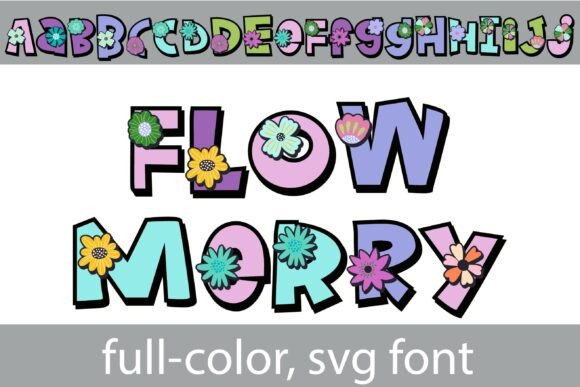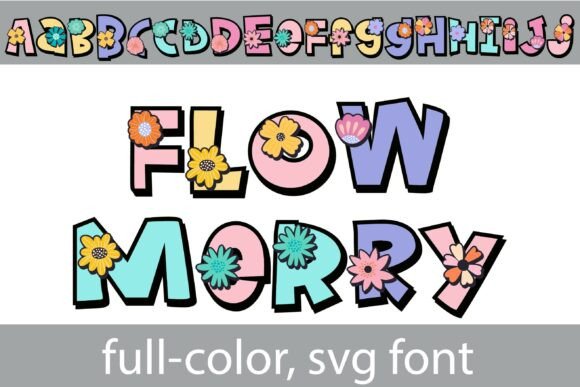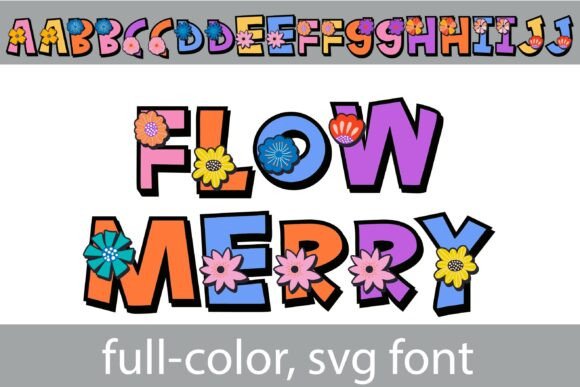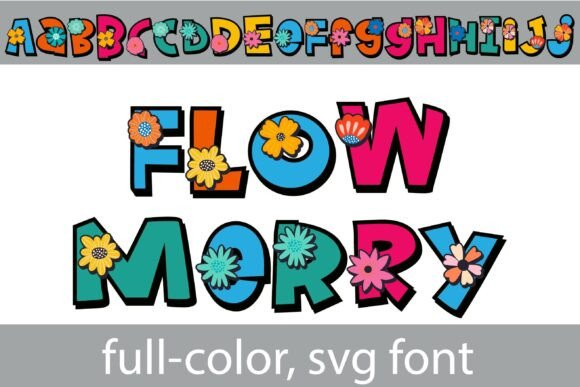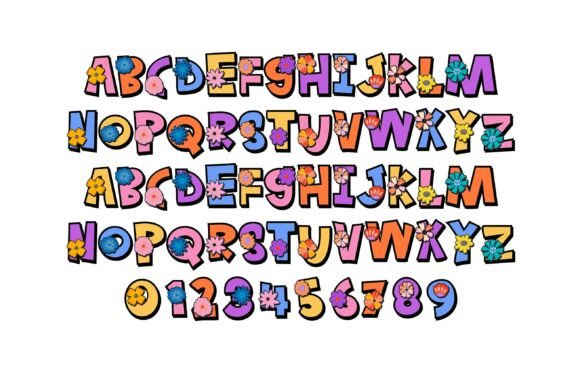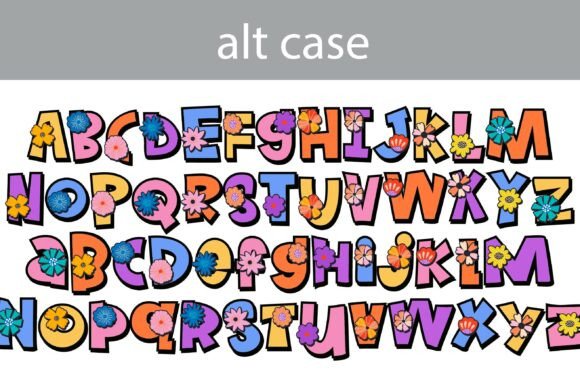
Bloom into Brilliance with FlowMerry Font: Elevate Your Designs with Vibrant Flair
Are you tired of using the same old fonts in your designs? Do you want to add a touch of whimsy and personality to your creative projects? Look no further than FlowMerry, a hand-crafted bundle of four full-color SVG fonts that’s sure to bring instant joy to your canvas. In this article, we’ll dive into the unique features of FlowMerry and explore how it can elevate your designs, whether you’re a seasoned designer or a crafty DIY enthusiast.
What is FlowMerry Font?
FlowMerry is a vibrant collection of four full-color SVG fonts, carefully crafted to bring a pop of color and personality to your designs. This stunning bundle features chunky, high-contrast block letters adorned with whimsical, hand-drawn floral accents that add a touch of elegance and sophistication. With its unique “maximalist-garden” soul and bold drop-shadows, FlowMerry is the perfect choice for designers and crafters looking to make a statement.
Key Features of FlowMerry Font
- Hand-crafted with love: Each letter in the FlowMerry font has been carefully hand-drawn with precision and attention to detail, ensuring a unique and personal touch.
- Four full-color SVG fonts: The bundle includes four different fonts, each with its own distinct character and style, giving you plenty of options to choose from.
- Whimsical floral accents: The hand-drawn floral accents add a touch of whimsy and playfulness to each letter, making FlowMerry perfect for designs that require a bit of personality.
- High-contrast block letters: The chunky, high-contrast block letters provide excellent readability, making FlowMerry suitable for a wide range of design applications.
- Bold drop-shadows: The bold drop-shadows add depth and dimension to each letter, giving your designs a professional and polished look.
FlowMerry is an incredibly versatile font bundle that can be used in a wide range of design applications, including:
- Independent boutique branding: Add a touch of elegance and sophistication to your boutique’s branding with FlowMerry’s unique and stylish fonts.
- Children’s party stationery: Create fun and playful party invitations, decorations, and favors with FlowMerry’s whimsical fonts and colorful accents.
- High-impact apparel graphics: Make a statement with FlowMerry’s bold and eye-catching fonts, perfect for t-shirts, hoodies, and other apparel.
- Celebratory social media headers: Add a pop of color and personality to your social media headers with FlowMerry’s vibrant and playful fonts.
Why Choose FlowMerry Font?
With so many fonts available, why choose FlowMerry? Here are just a few reasons why FlowMerry stands out from the crowd:
- Unique and original: FlowMerry’s hand-crafted fonts are truly one-of-a-kind, ensuring your designs will stand out from the crowd.
- Easily customizable: With FlowMerry’s SVG files, you can easily customize the fonts to fit your brand’s style and personality.
In conclusion, FlowMerry is a stunning font bundle that’s sure to bring a touch of whimsy and personality to your designs. With its unique features, versatility, and high-quality SVG files, FlowMerry is the perfect choice for designers and crafters looking to elevate their creative projects. Whether you’re looking to create independent boutique branding, children’s party stationery, high-impact apparel graphics, or celebratory social media headers, FlowMerry has got you covered. So why wait? Bloom into brilliance with FlowMerry and take your designs to the next level!